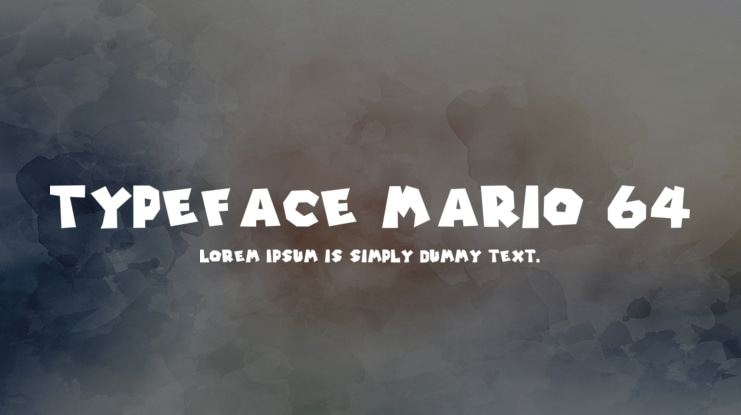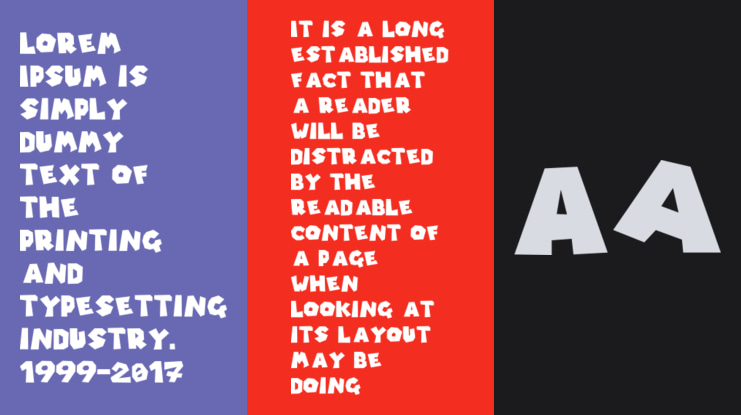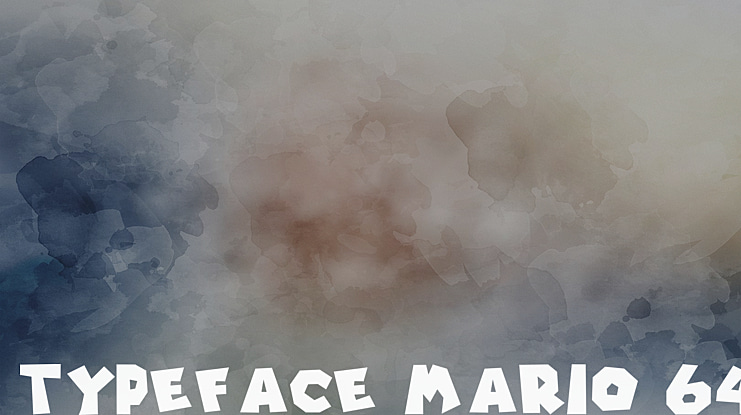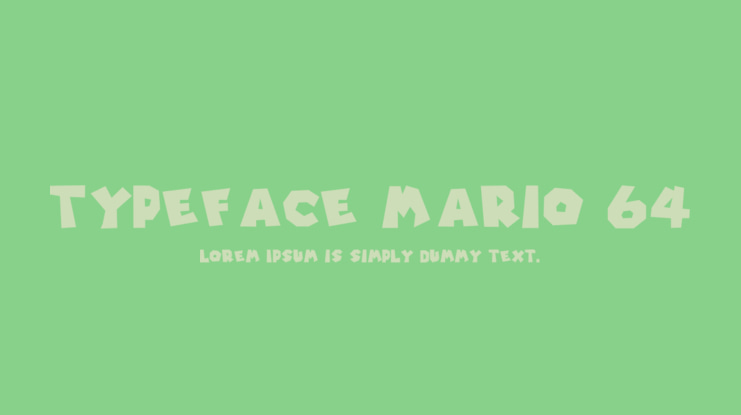
Typeface Mario 64 Font
Typeface Mario 64 is a font based on the Super Mario 64 logo which appeared on the Nintendo 64 in 1996.
Both the capital and lowercase letters are different, which adds more diversity.